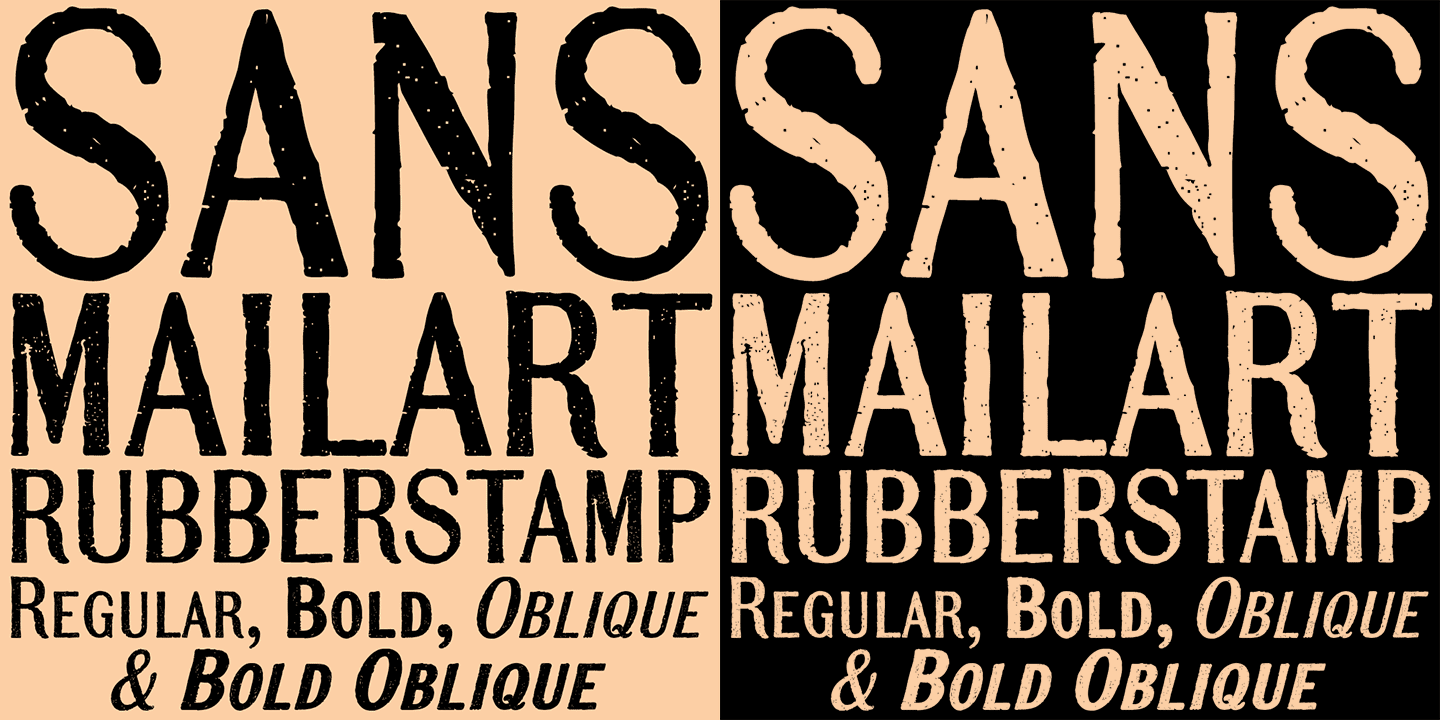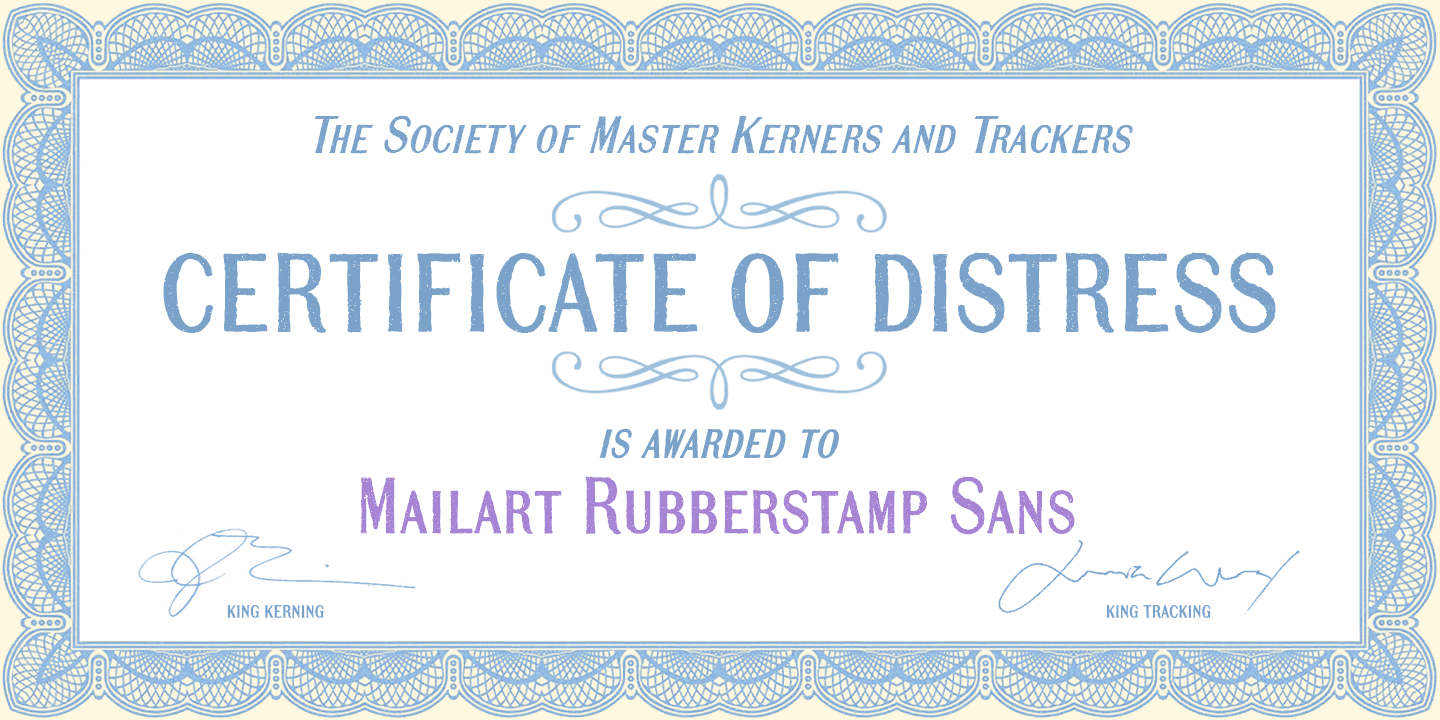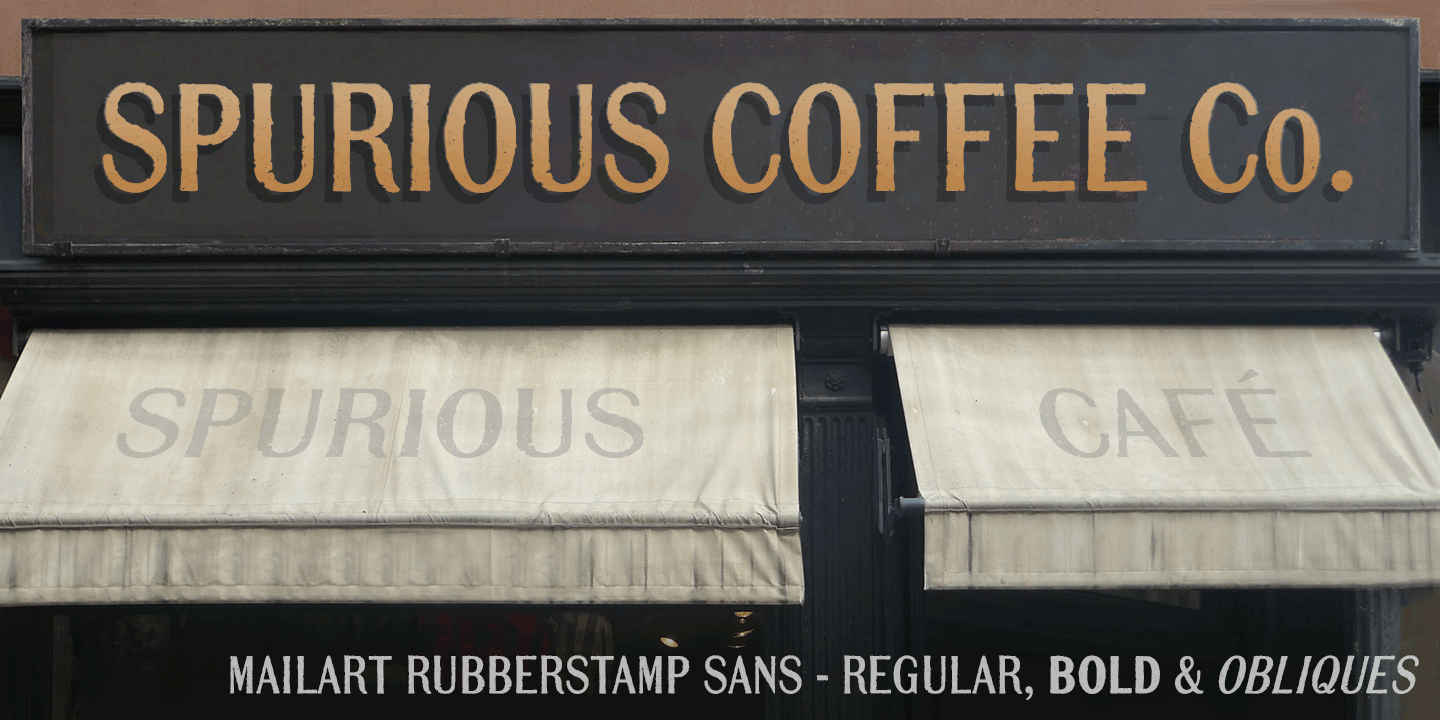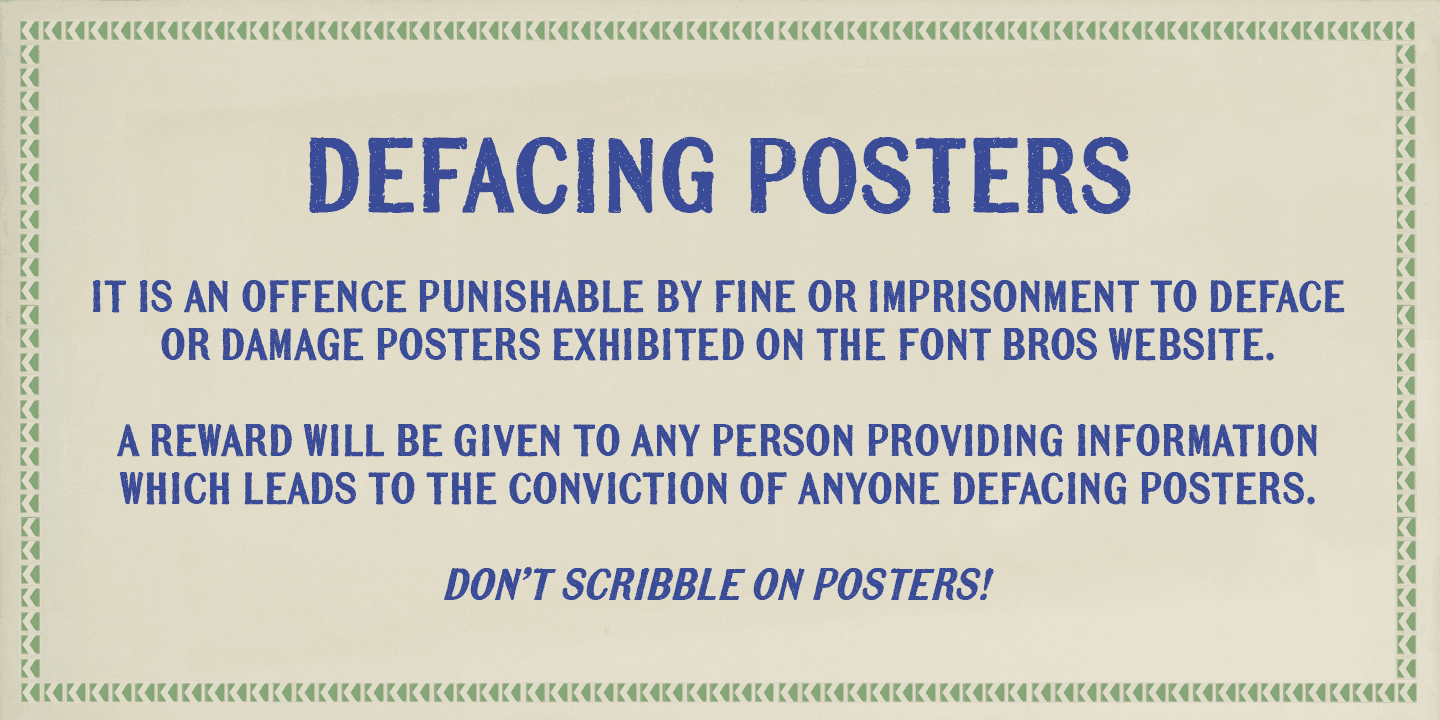
About Mailart Rubberstamp Sans
A slightly distressed sans-serif based on K-Type Mailart Rubberstamp. Thinner strokes have been thickened a little to compensate for the loss of serifs. The licensed download comprises four fonts ? Regular, Oblique, Bold and Bold Oblique.